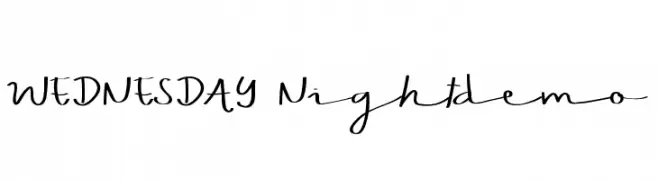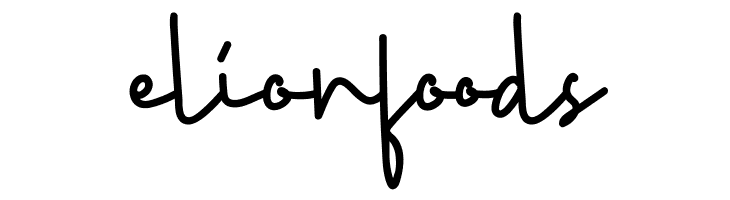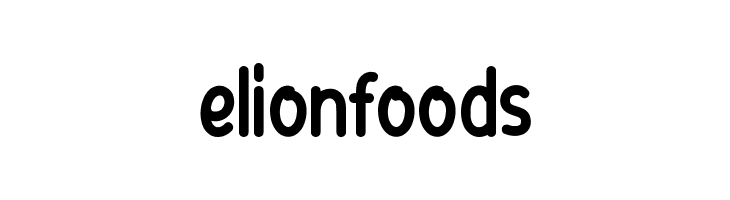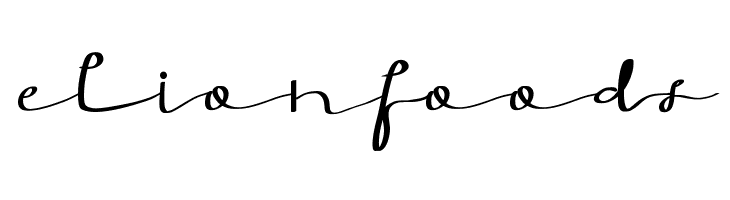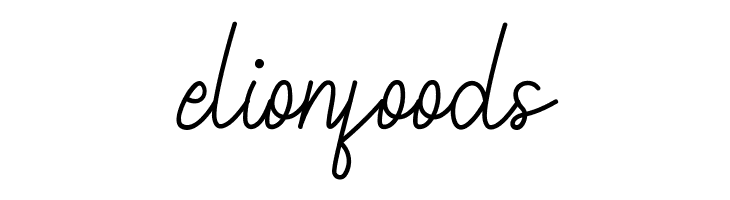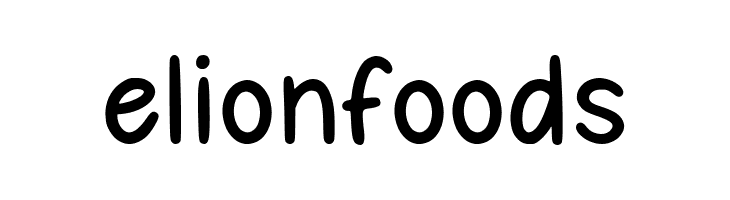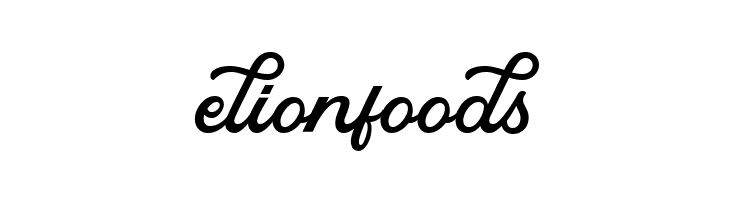
• WEDNESDAY Nightdemo
A playful and elegant script font with a handwritten style.
• Birthday Girl Demo Script
A playful, handwritten script font with a modern and whimsical style.
• Birthday Girl Demo
A playful, rounded font with a friendly and approachable style.
• Thuesday Demo
A flowing, cursive script with elegant loops and swashes, mimicking traditional calligraphy.
• Walkingday Demo
A flowing, cursive font with interconnected characters and a sophisticated style.
• Magic Saturday
A playful, handwritten font with a casual and whimsical style.
• Monday Feelings
A playful, hand-drawn font with rounded, whimsical characters.
• HeyMonday
A classic script font with elegant, flowing cursive letters and moderate stroke contrast.
• Stunning Christmas Monogram
A festive, decorative font with holiday-themed embellishments.
• HomeChristmas-Regular
A festive and decorative font with playful embellishments, perfect for holiday themes.